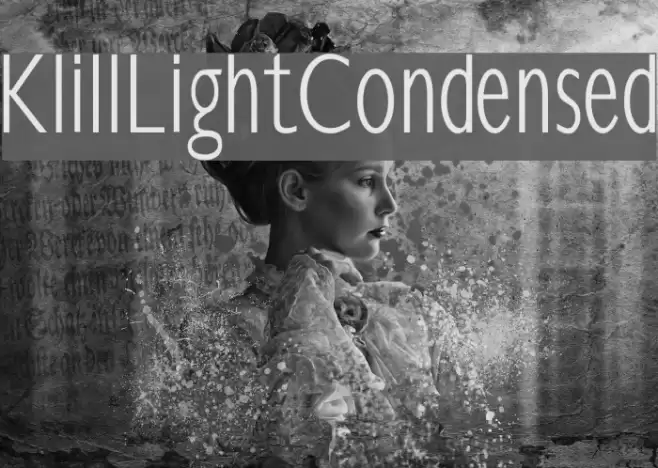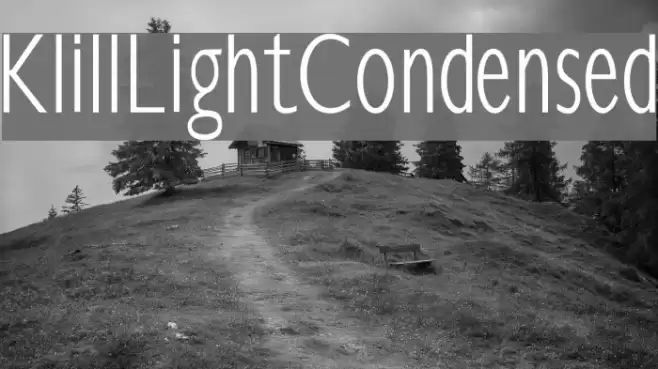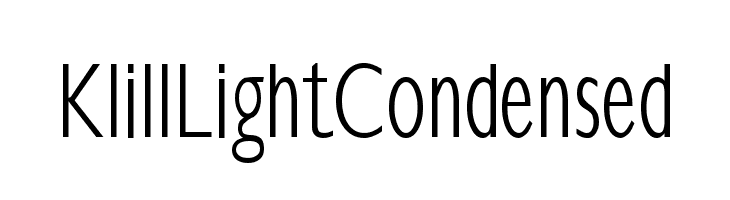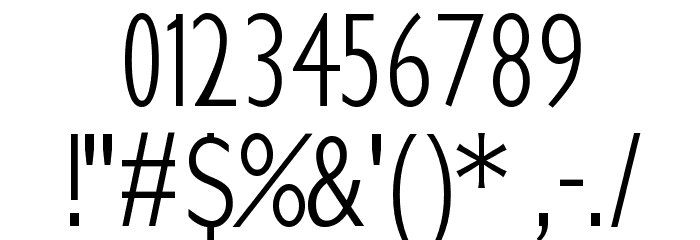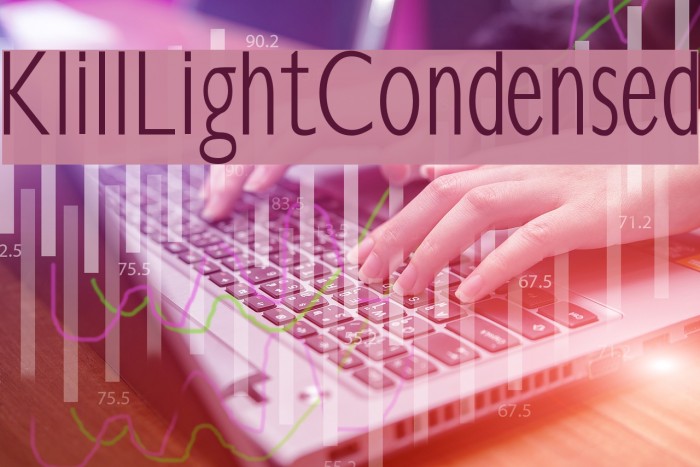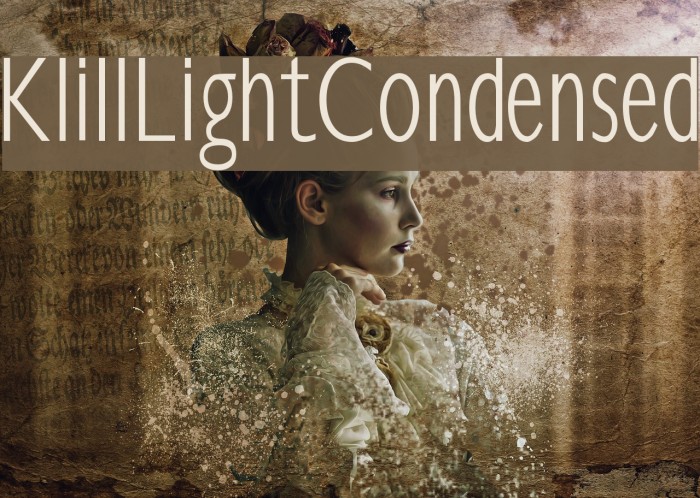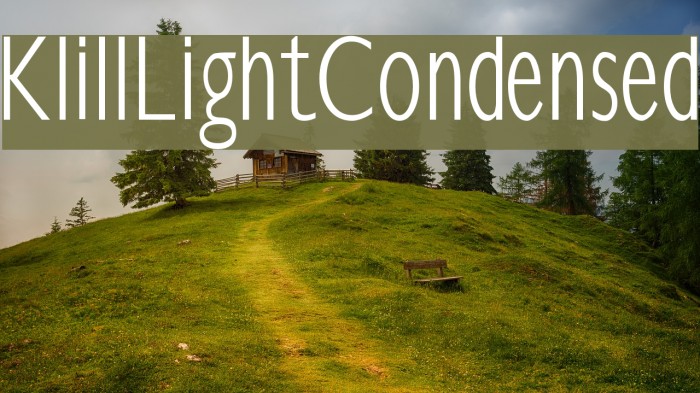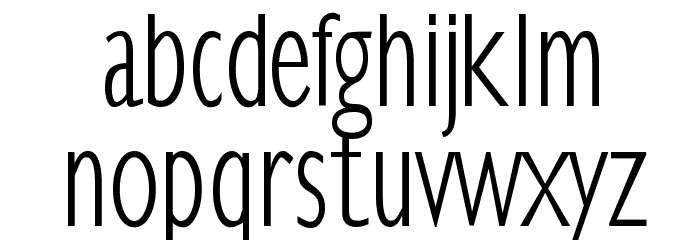
KlillLightCondensed
This font features a sleek and modern design with a condensed structure, making it ideal for space-efficient text. The characters are clean and minimalistic, with a uniform stroke width that conveys a sense of elegance and simplicity. The uppercase letters are tall and narrow, while the lowercase letters maintain a consistent height, enhancing readability. Numbers and special characters are designed to match the overall aesthetic, ensuring a cohesive look across all text elements. The font's light weight and tight character spacing make it suitable for a variety of design applications where clarity and style are paramount.
A sleek, modern, and condensed font with a light weight and minimalistic design.
- Proposed Projects: Ideal for branding, editorial design, packaging, and web design projects where space is limited and a modern aesthetic is desired.
- Weight: Light
- Width: Condensed
- Character Spacing: Tight